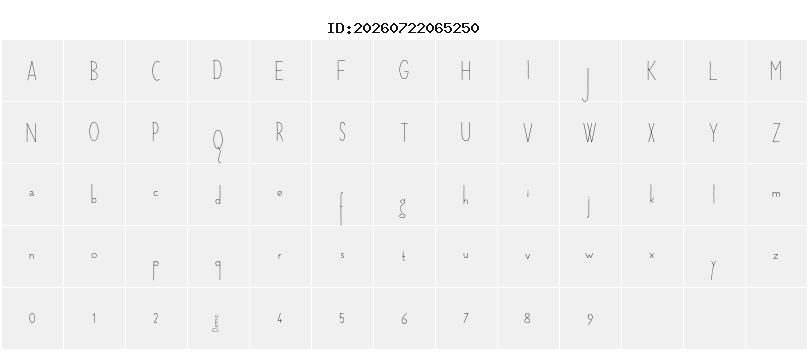
• Font Name: Hopefulgiraffe Demo
• Full Font Name: Hopeful giraffe Demo
About Hopefulgiraffe Demo.otf
Hopefulgiraffe Demo.otf is a modern, elegant sans-serif font designed for ultimate readability and visual harmony. Perfect for branding, headlines, web design, and print materials.